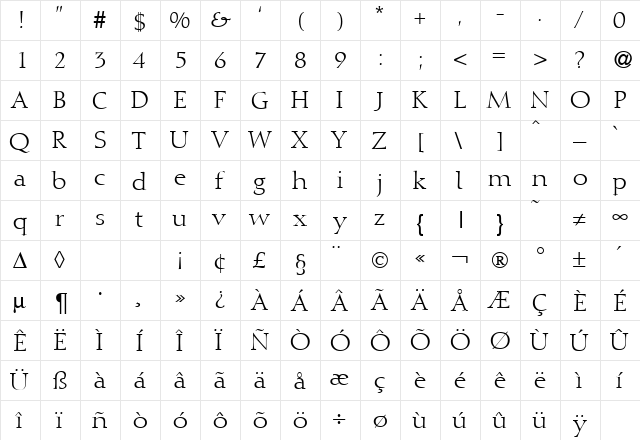
Dioscur DB Regular
Design Context for Dioscur DB Typeface
Dioscur DB offers clean, dependable letterforms without strong stylistic allegiance, making it a practical choice for designers who need flexibility.